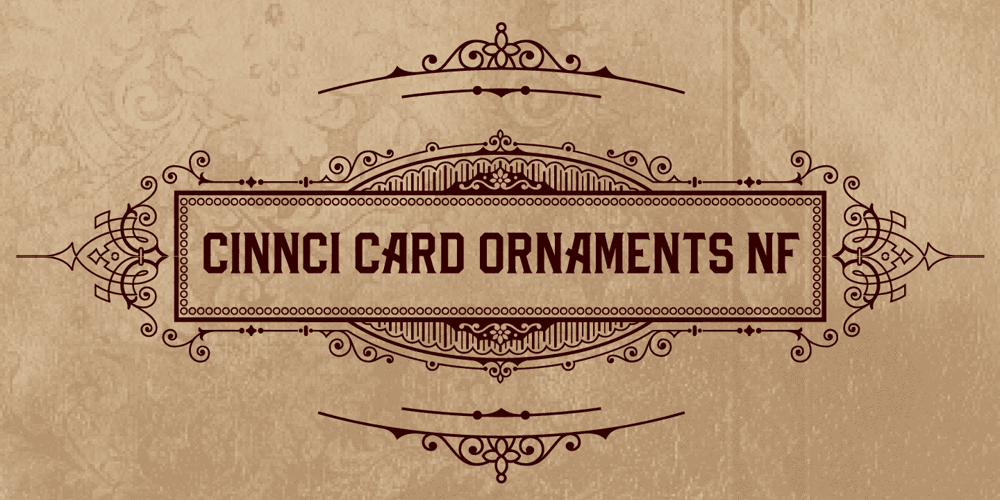
Cinnci Card Ornaments NF
Cinnci Card Ornaments NF font
Cinnci Card Ornaments NF Font Family was designed by Nick Curtis and published by Nick’s Fonts. Cinnci Card Ornaments NF contains 1 styles and family package options. A collection of design elements used in logotypes and calling cards from the Victorian era. A PDF file included in the package shows how to construct the various elements